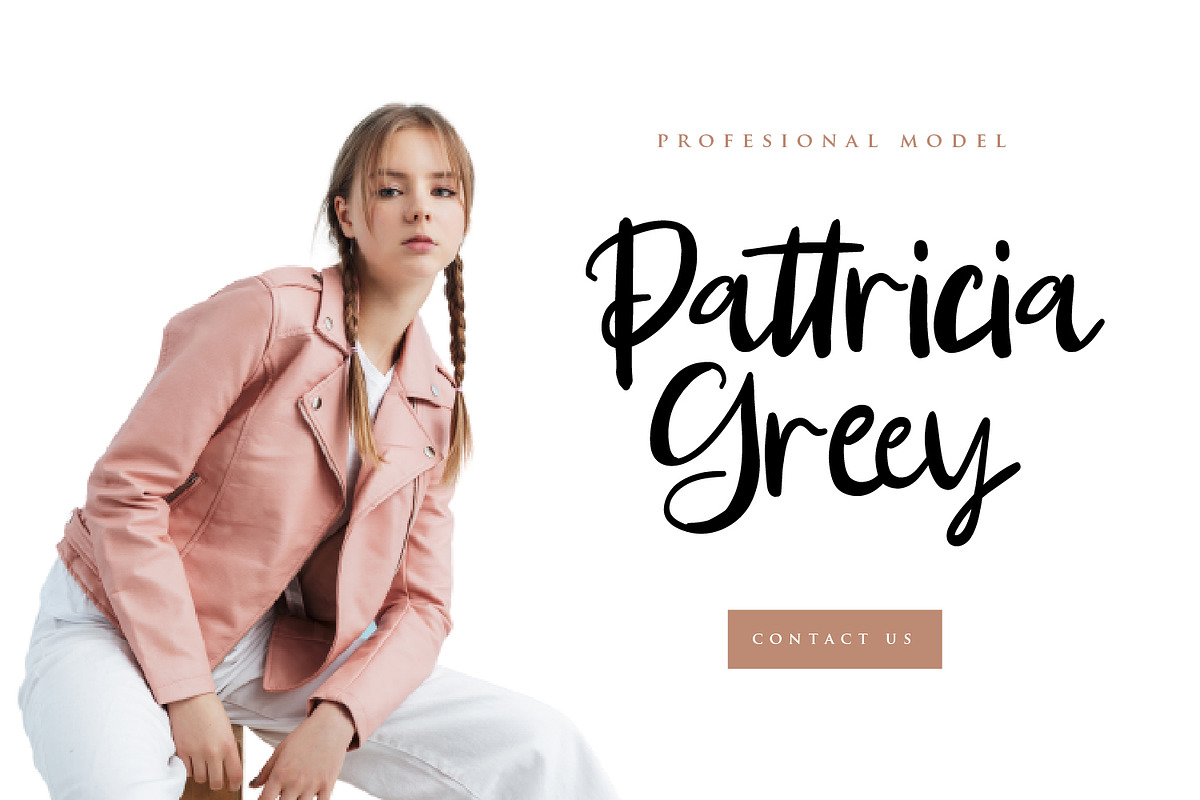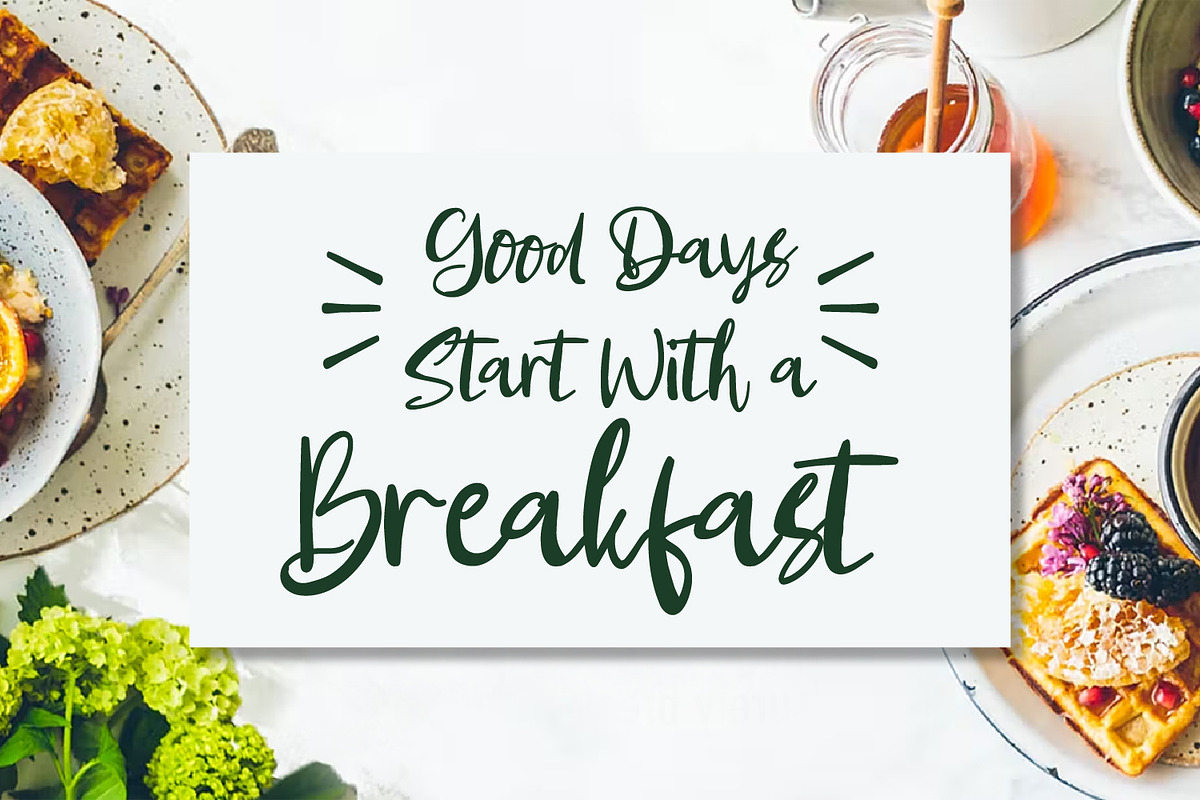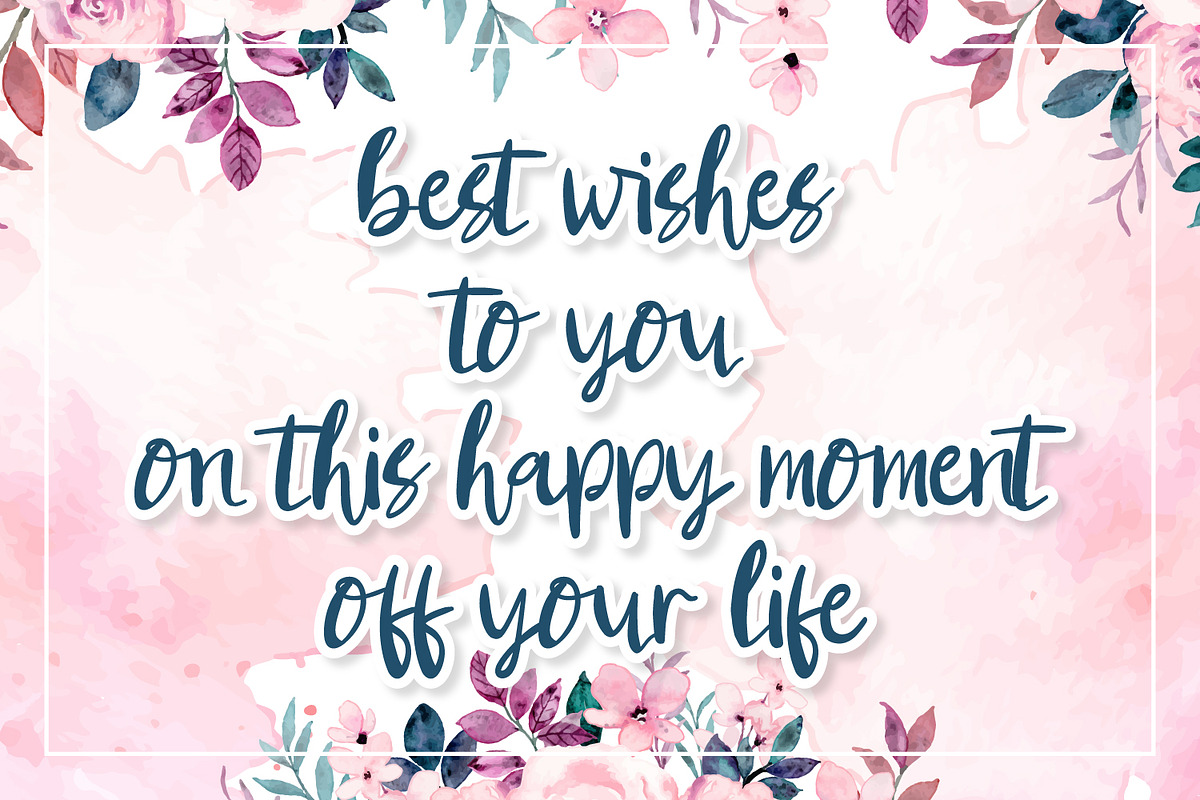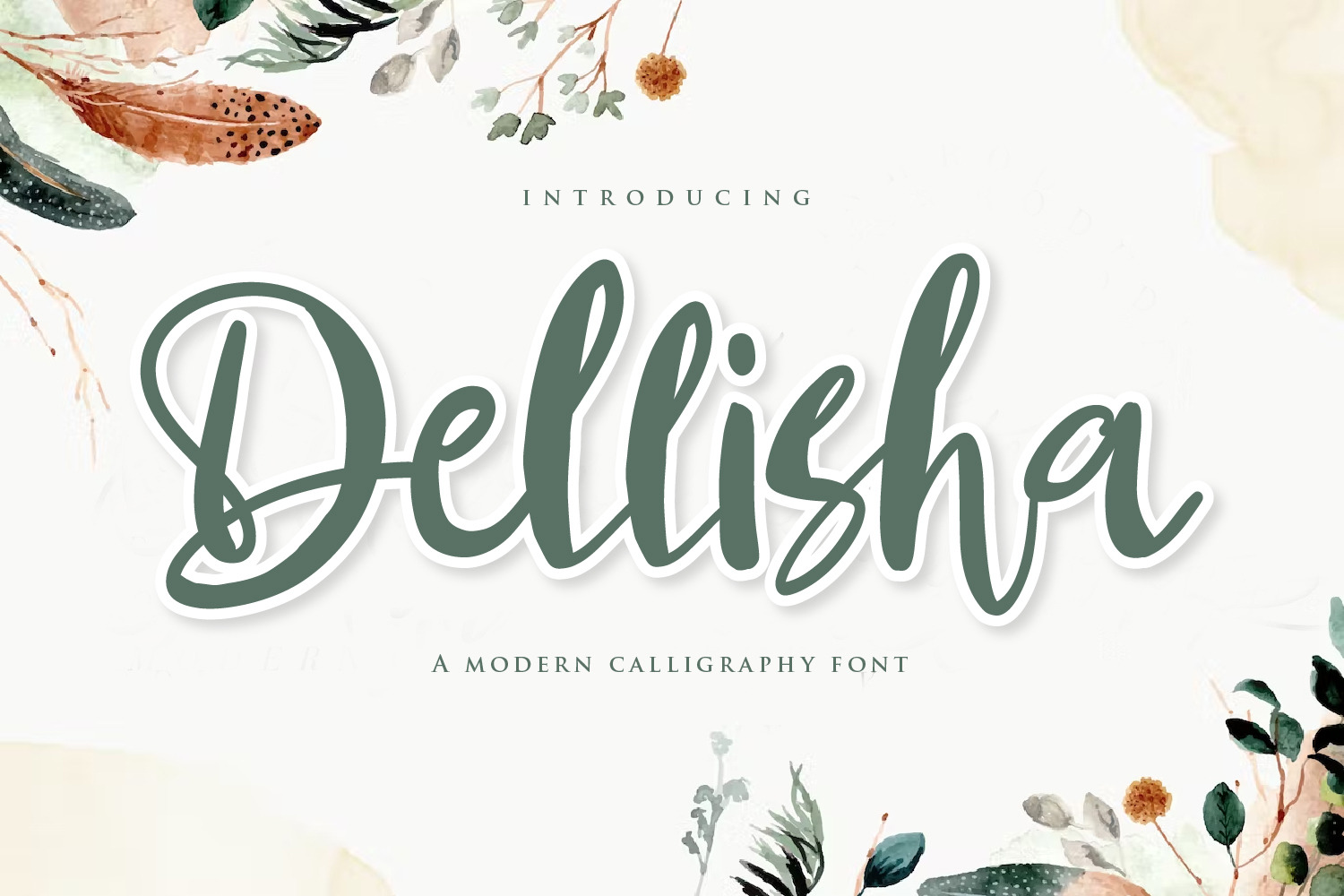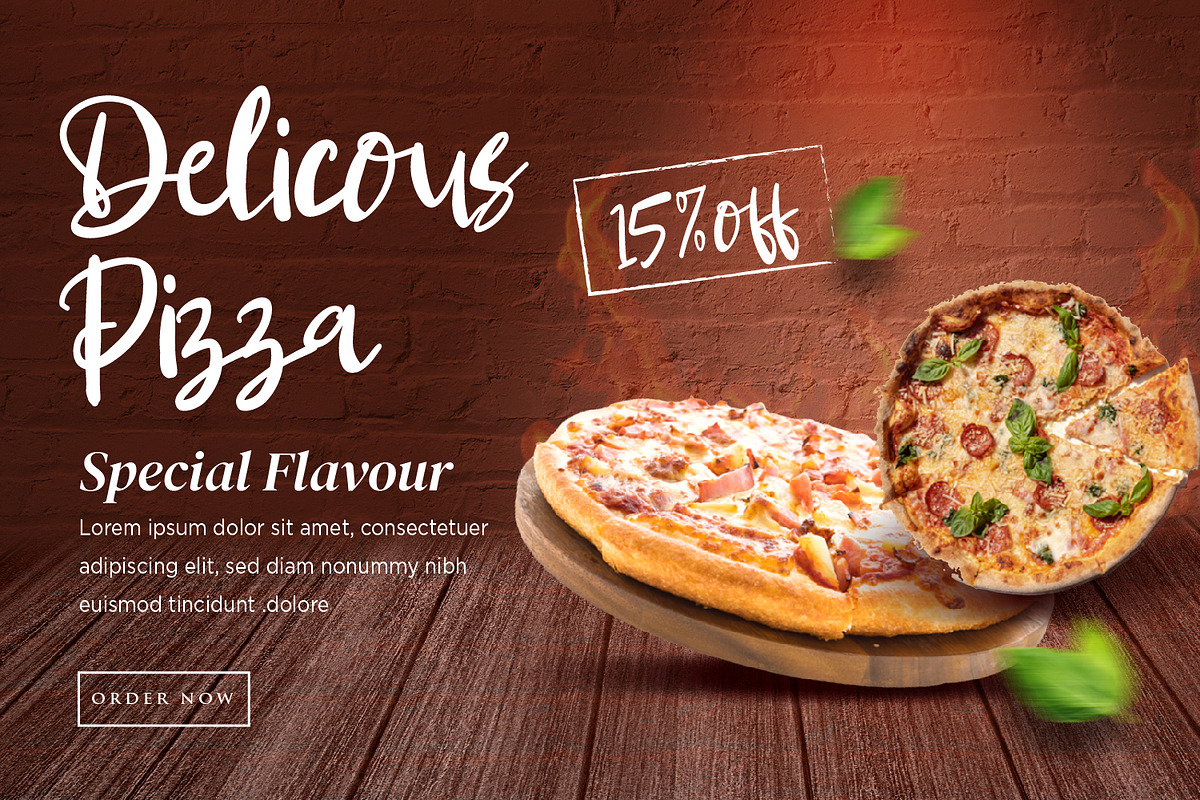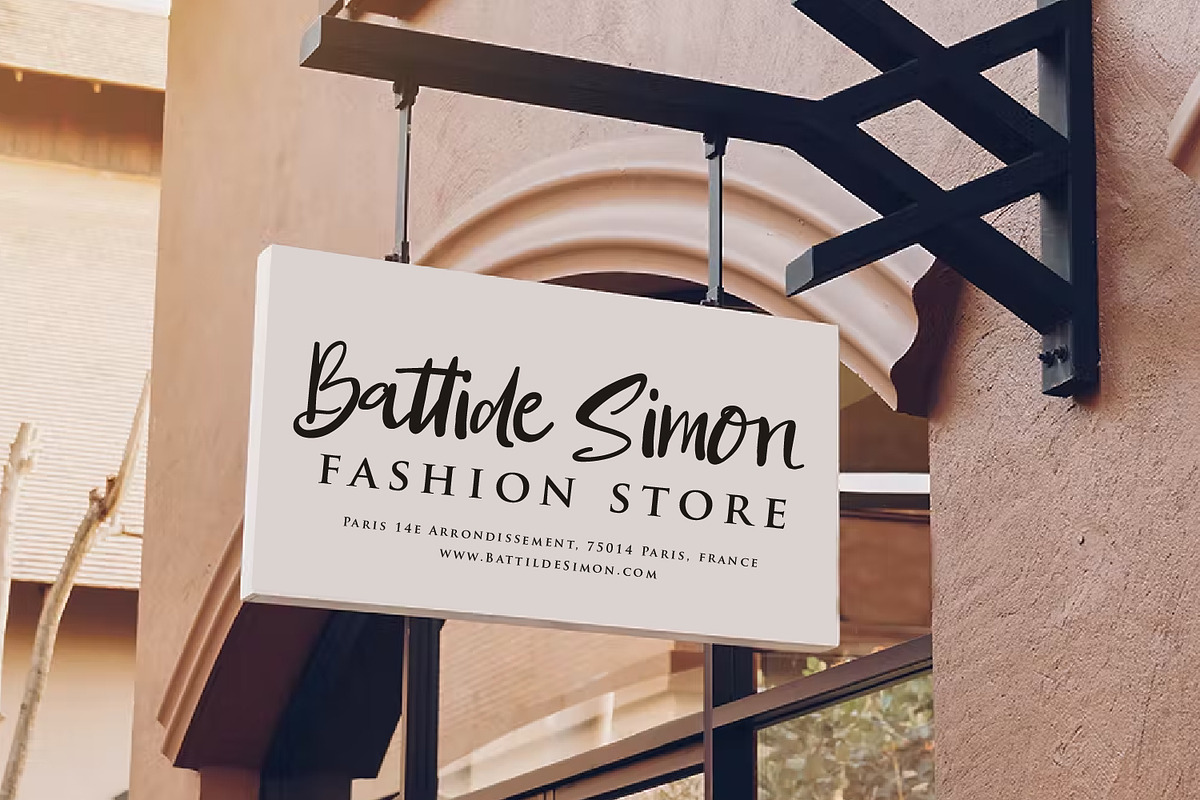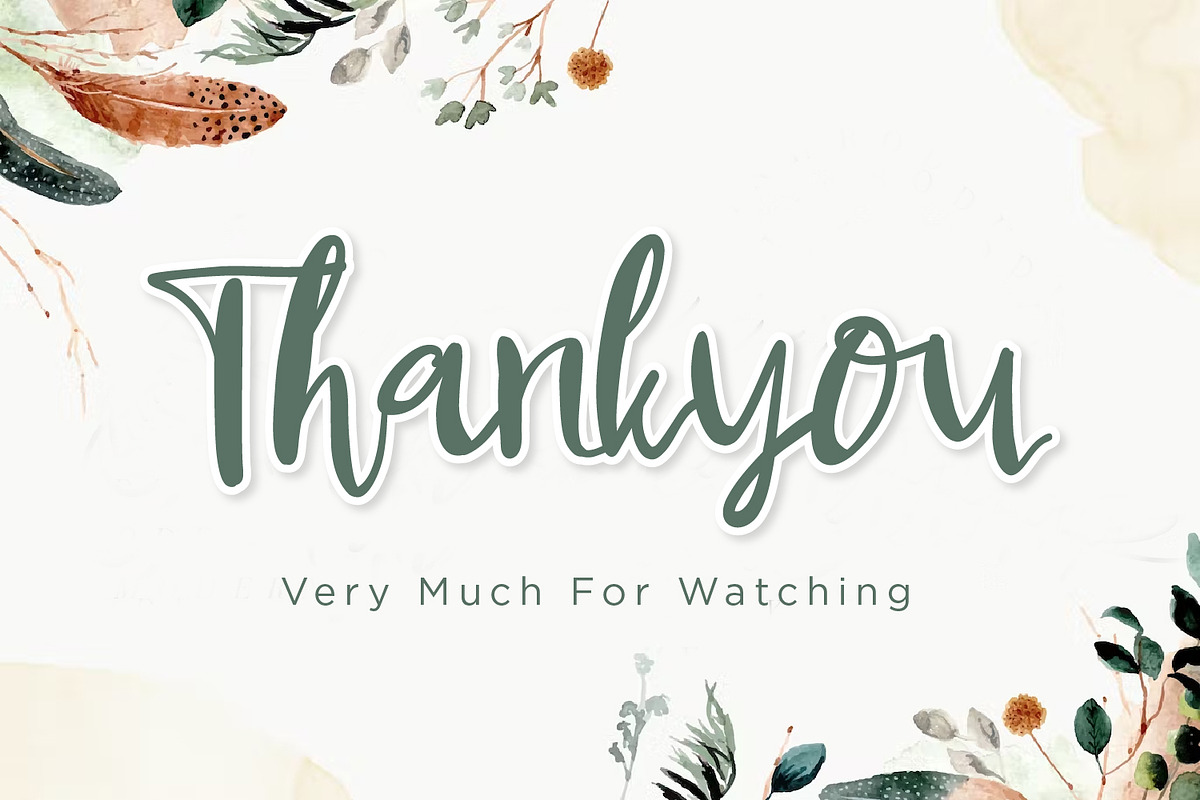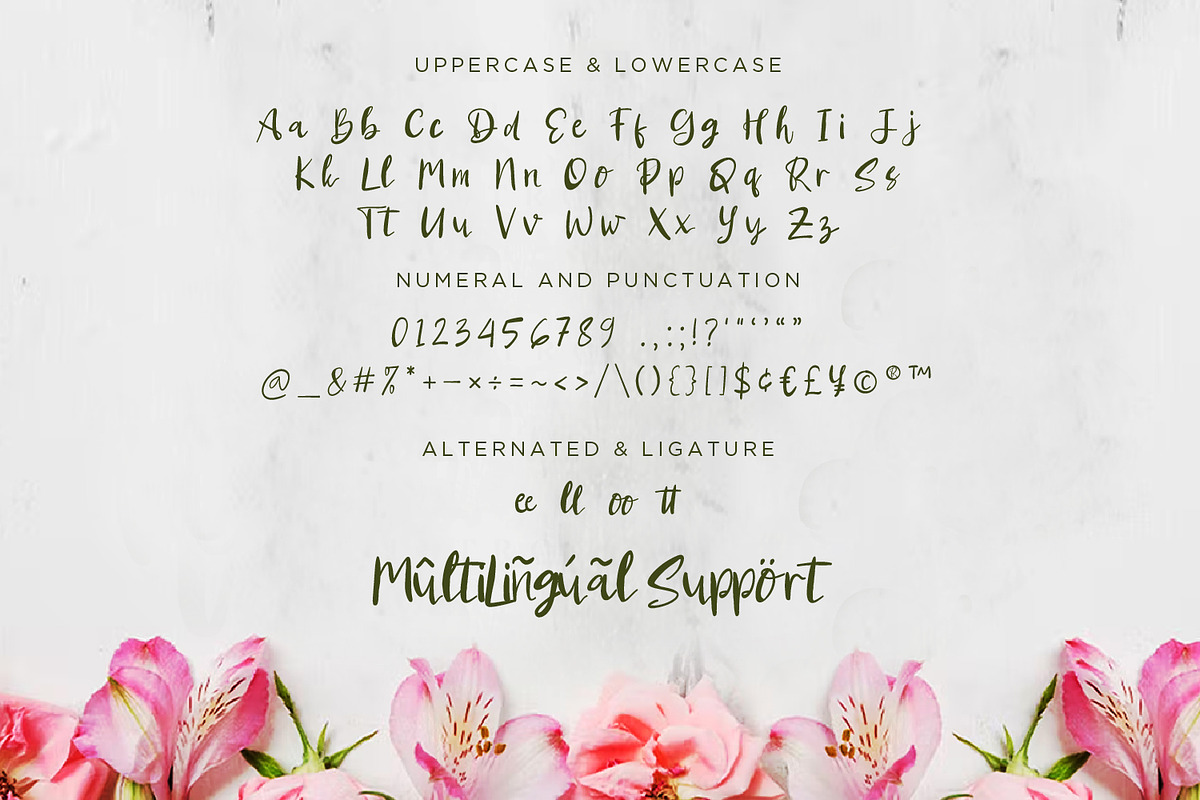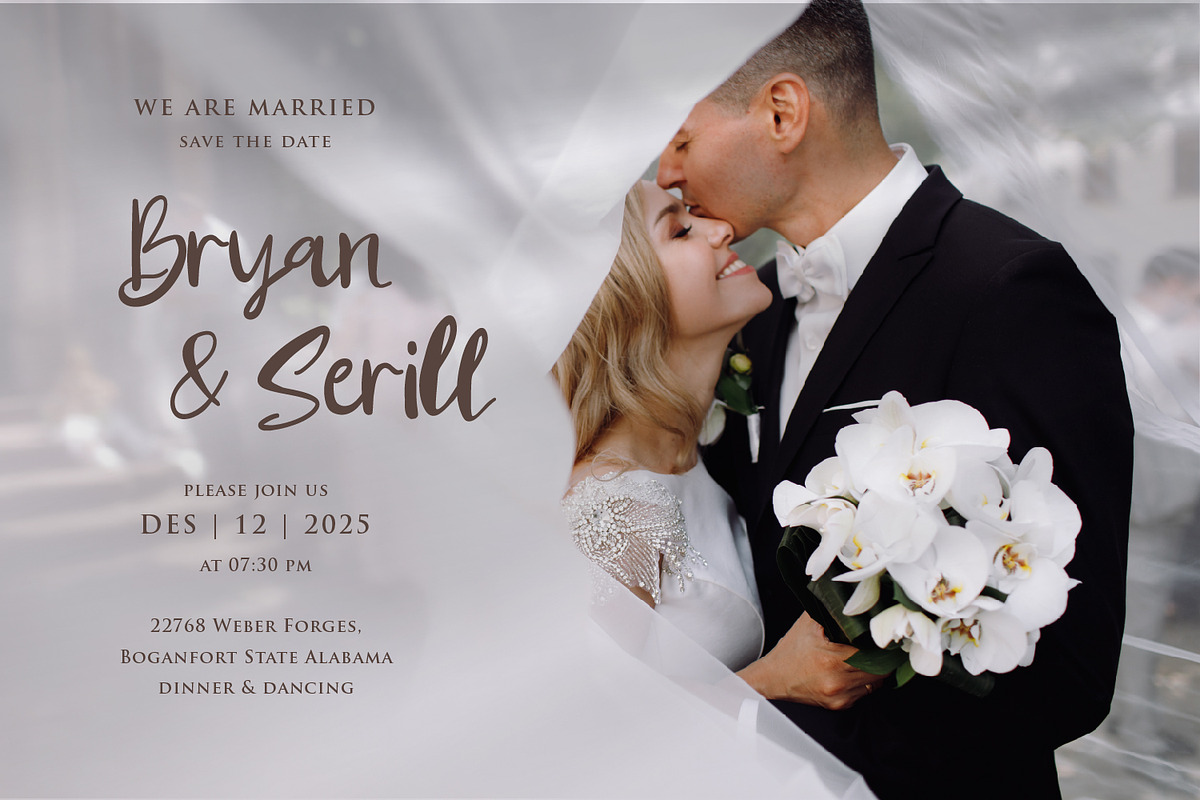
Dellisha - Handwriten Script fonts
Dellisha is a Handwriten script font, will be suitable for any projects such as logo’s, branding projects, homeware designs, product packaging, mugs, quotes, posters, shopping bags, t-shirts, book covers, name card, invitation cards, greeting cards, label, photography, watermark, special events, and all your other lovely projects that need beautiful handwriting taste.